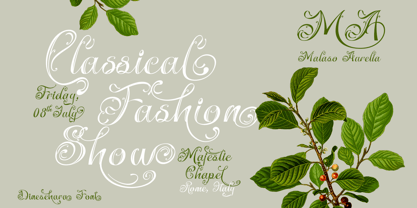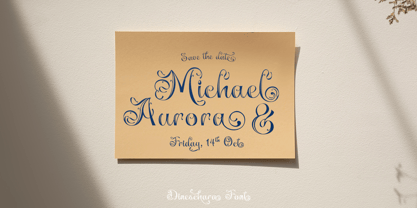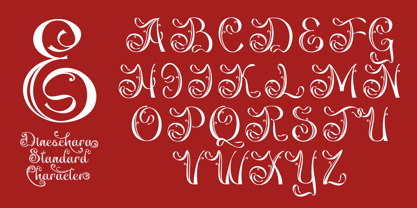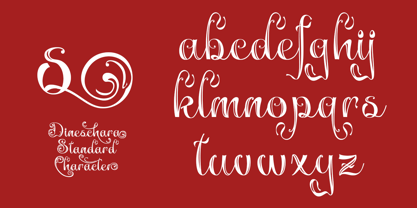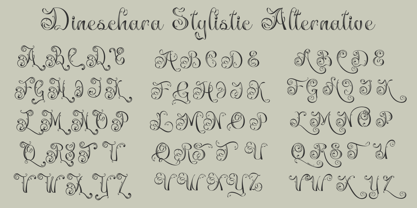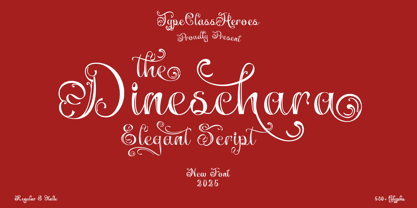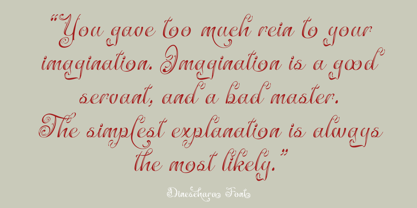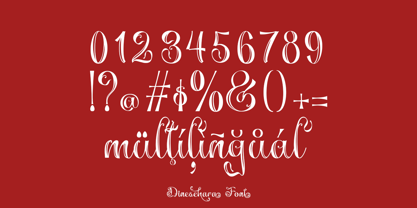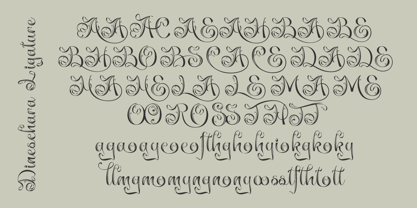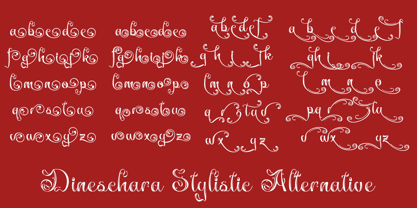
Dineschara
by TypeClassHeroes
The Dineschara Font Family was designed by Suandana ipandemade and published by TypeClassHeroes. Dineschara contains 2 styles and family package options. More about this family
Dineschara is a script with elegant curves, gorgeous and modern feels. Carefully creating every glyph, designing beautiful simple words with this font. The letterforms are highly stylized with ornate swashes; thick and thin strokes make it ideal for high-end branding, book covers, or high class invitations, particularly for classic or heritage brands.
Designers: Suandana ipandemade
Foundry: TypeClassHeroes